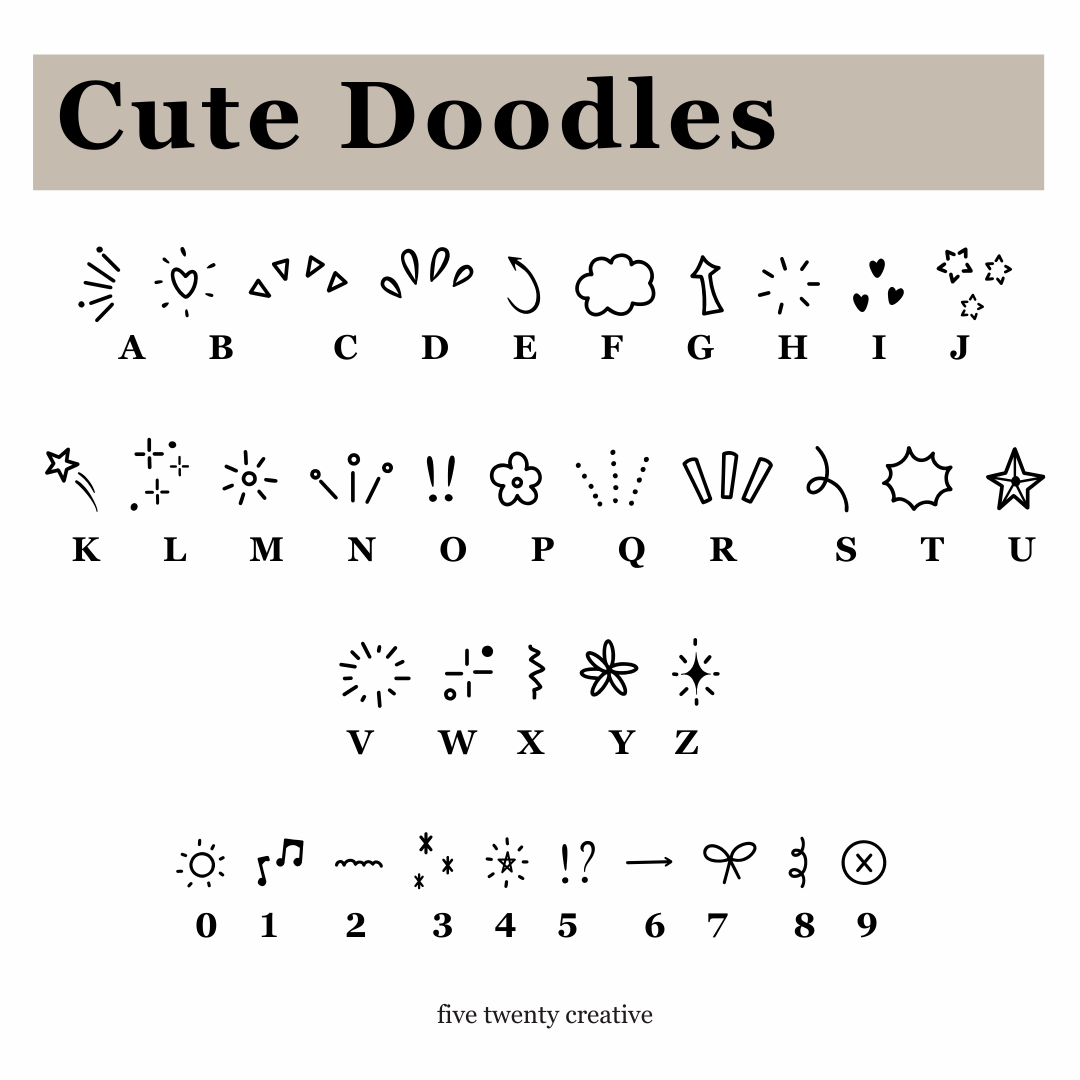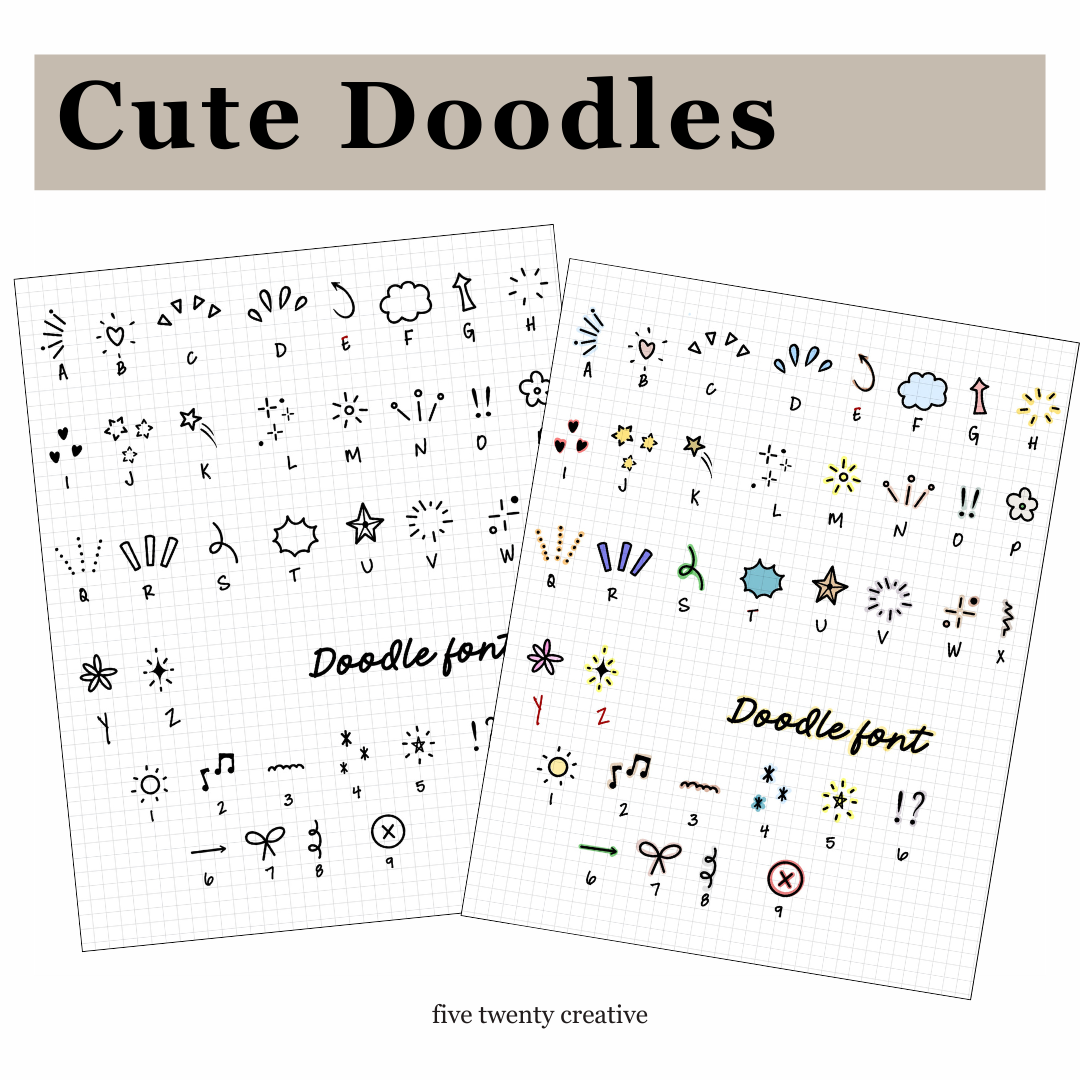
Color Changing Cute Doodle Font
Jazz up your planner pages with this delightfully squiggly doodle font! These hand-drawn glyphs add a little something fun to your spreads and you can change the color to match your palette!